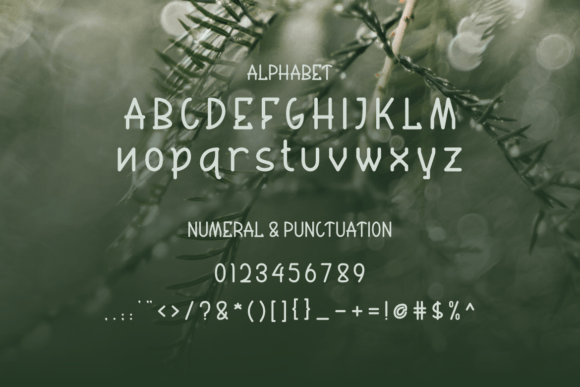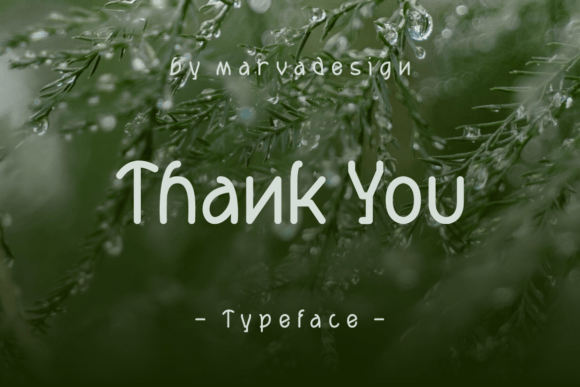
Meet the Bouncosh Font, a delightful display font that exudes friendliness and approachability. Whether you’re crafting a handmade card, designing a presentation, or creating digital art, this font is sure to bring a smile to your face and a touch of personality to your work. As a designer, you know how valuable it is to have a versatile font in your toolkit, and Bouncosh Font is definitely one to add to your collection.
- Character Set: The font includes a comprehensive set of characters, including Latin, Cyrillic, and Greek alphabets, as well as a range of punctuation and symbol characters.
- Unique Characteristics: Bouncosh Font is designed with a unique, playful aesthetic, featuring rounded shapes and a bouncy feel that adds a touch of whimsy to any text.
- Style Variations: The font includes multiple style variations, including Regular, Italic, Bold, and Bold Italic, allowing users to add depth and emphasis to their text.
Bouncosh Font Review
I recently had the chance to work with the Bouncosh font, and I wanted to share my honest thoughts on its performance.
The Bouncosh font is a fun, playful addition to any design project. Here are a few things that stood out to me:
- Its unique, rounded shape makes it perfect for creating a friendly, approachable atmosphere.
- The font is highly customizable, allowing designers to easily adjust its size, color, and spacing to suit their needs.
- It’s a great choice for digital designs, such as app icons, social media graphics, and website headers.
While the Bouncosh font is a great addition to any design project, it’s not without its limitations:
- The font can be difficult to read at very small sizes, making it less suitable for body text.
- Its playful nature can sometimes make it feel over-the-top or juvenile in certain contexts.
Overall, I think the Bouncosh font is a great choice for designers looking to add a touch of whimsy and fun to their projects. While it’s not perfect, its unique shape and high customization options make it a valuable addition to any design toolkit.
Bouncosh Font is ideal for:
1. Creating eye-catching headlines and titles.